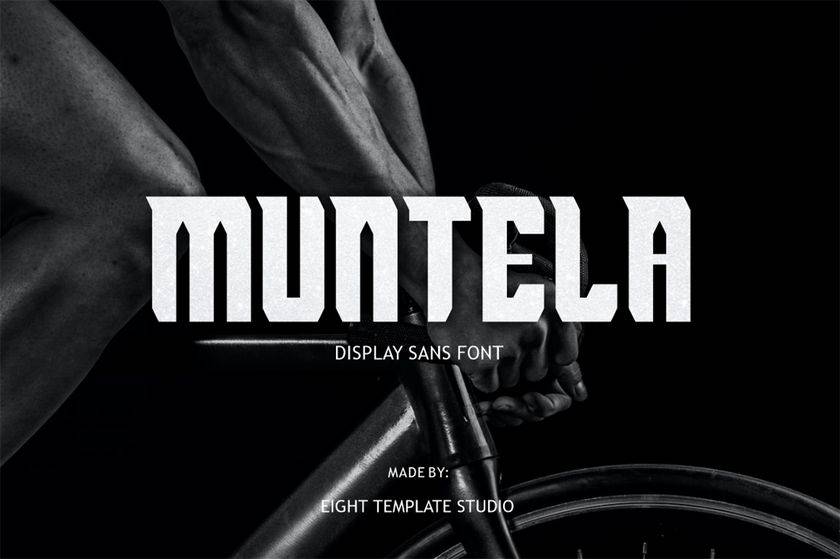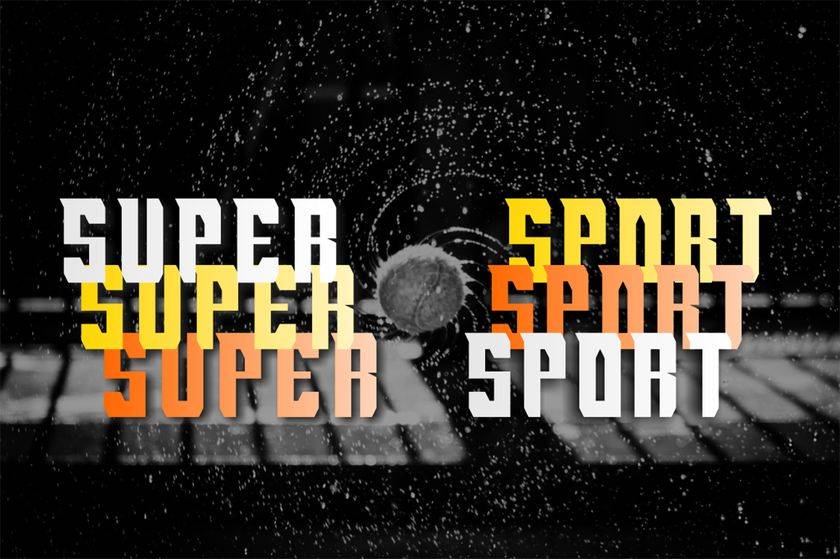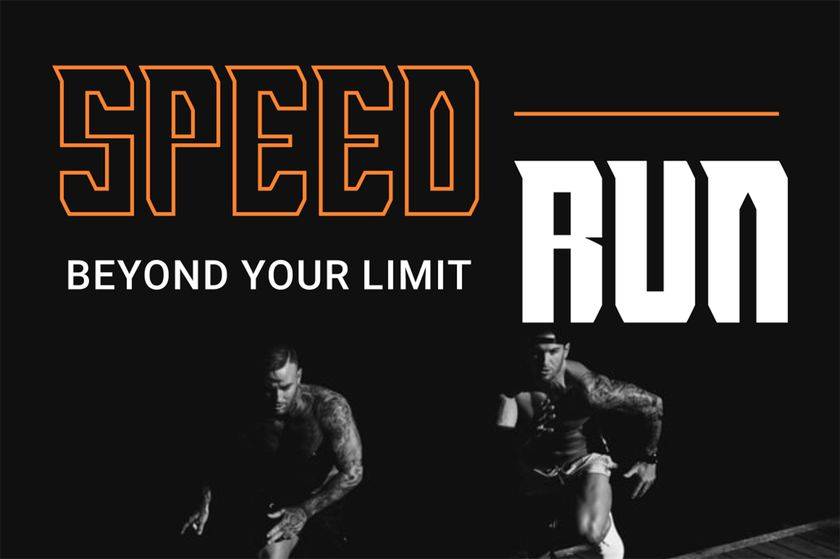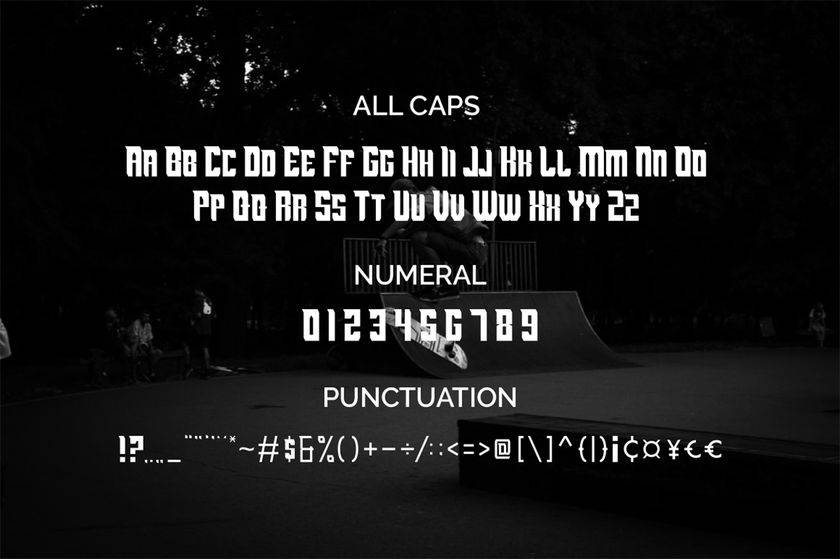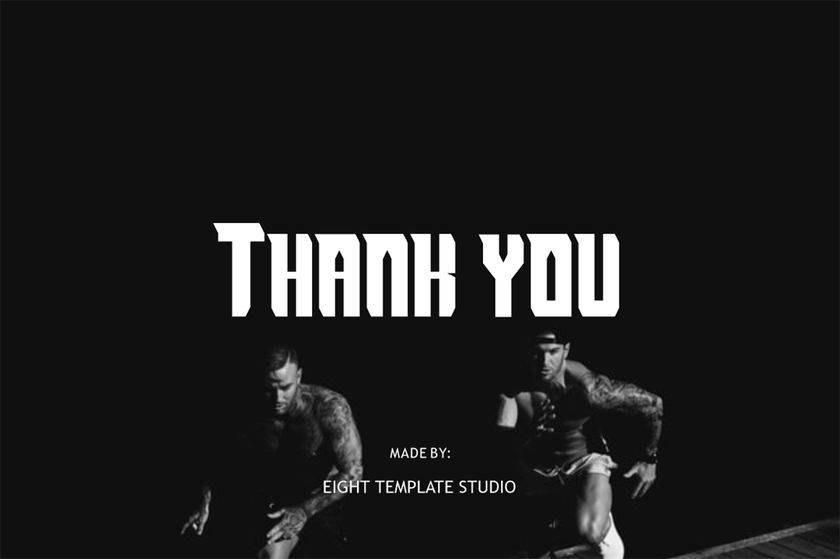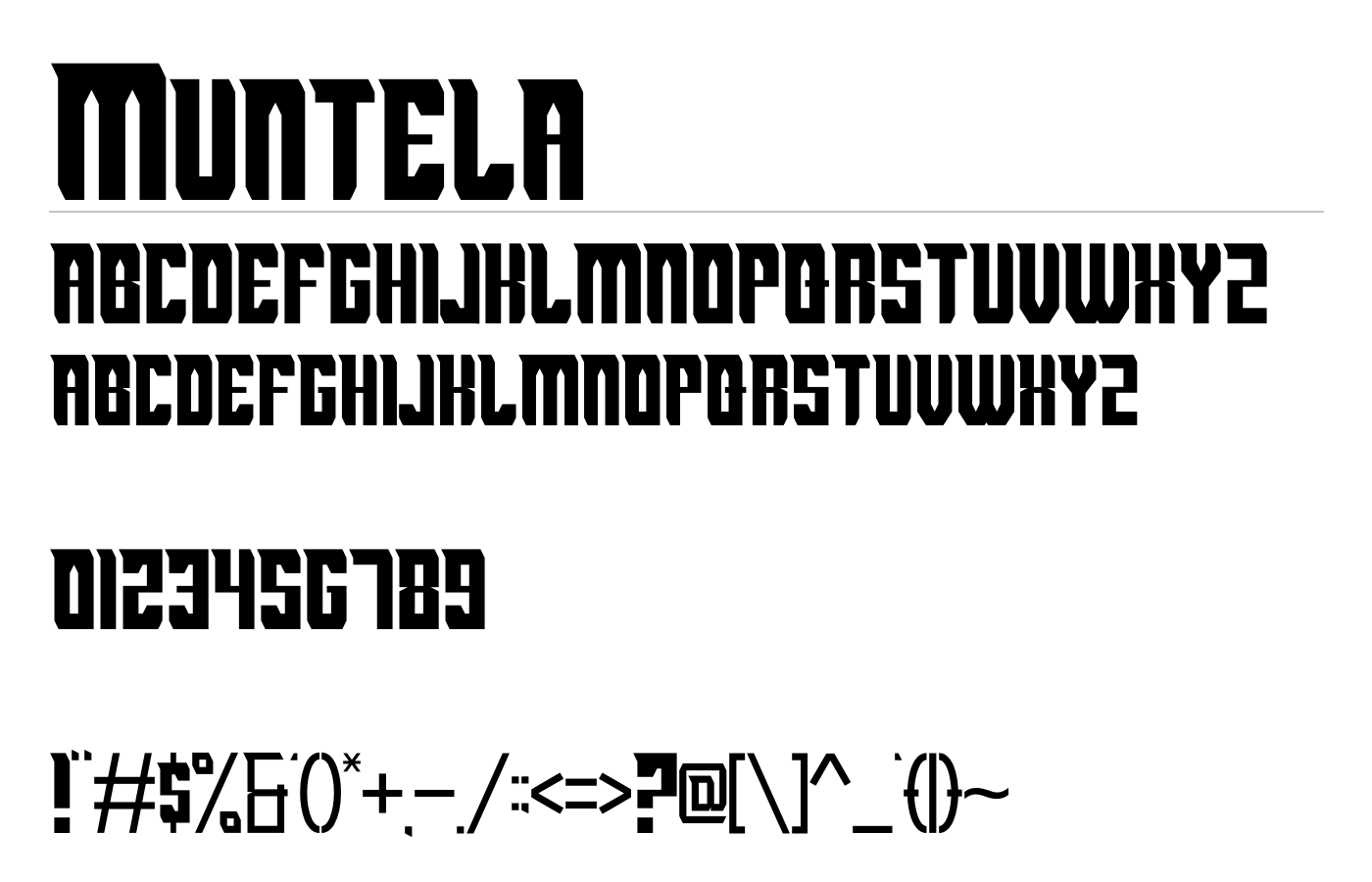
Muntela is a bold, condensed sans-serif font with a strong geometric and blocky style, featuring sharp angles and consistent heavy strokes that give it a commanding, industrial feel. Its all-caps design, combined with distinctive letterforms like the angular Q tail and the sturdy numeral shapes, makes it ideal for eye-catching headlines, logos, and branding that aim to convey strength and modern edginess. This font works best in display settings where a powerful and impactful impression is needed, especially for industries that want to combine a sleek, contemporary look with a hint of ruggedness.
Muntela Font
About Muntela Font